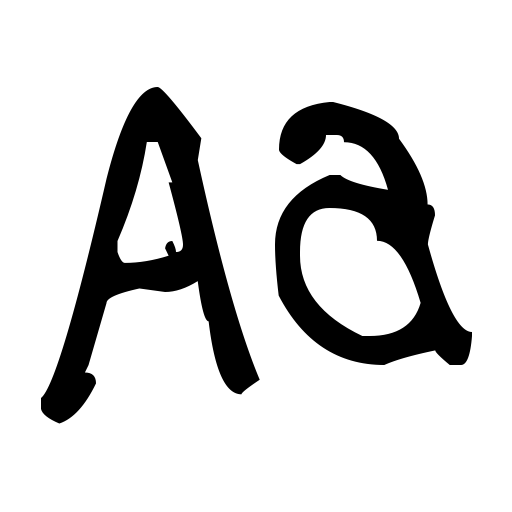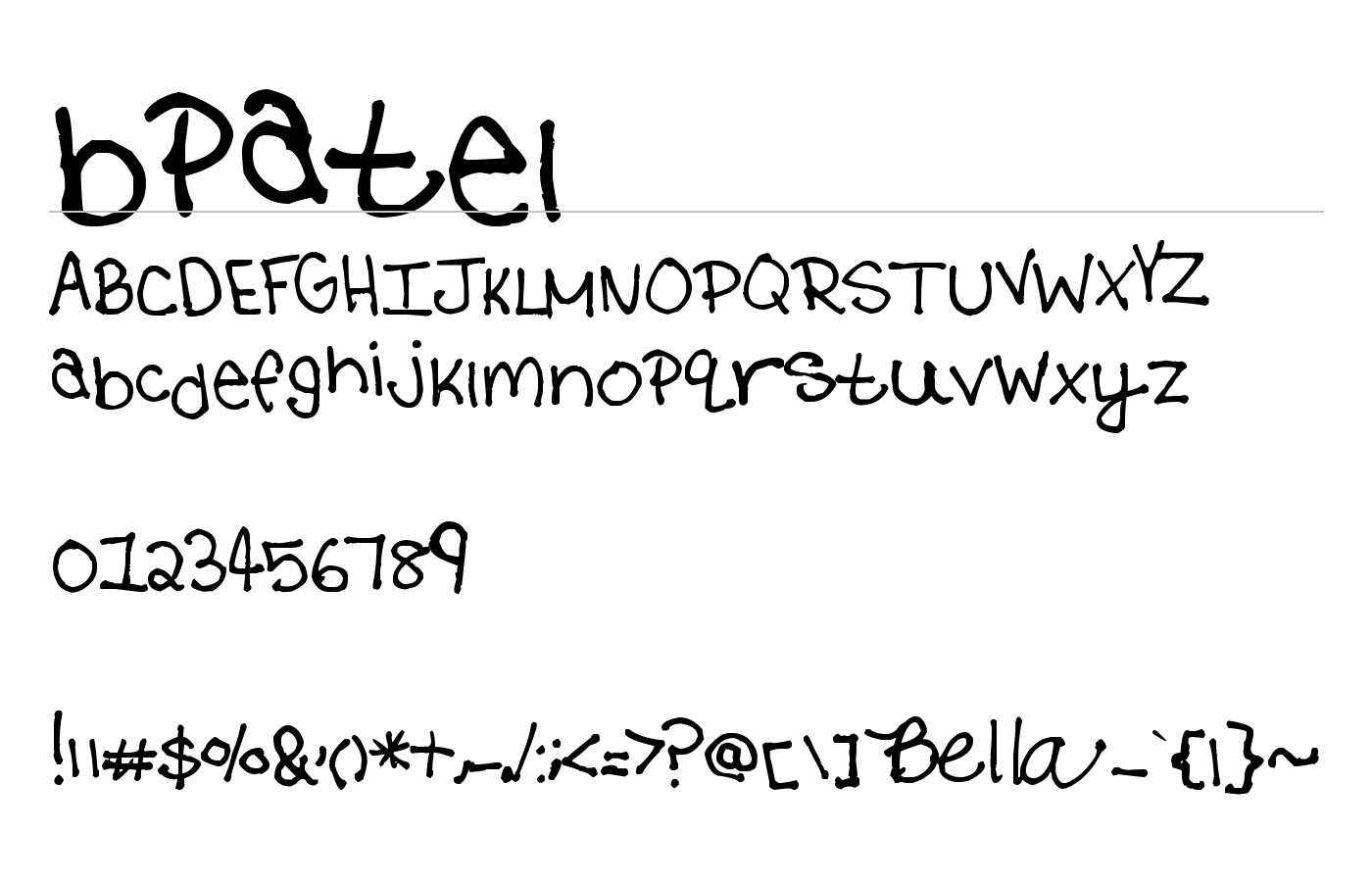
bpatel is a playful, handwritten sans serif font with a casual and quirky personality. Its irregular strokes, uneven letter shapes, and moderate x-height give it an informal, friendly feel, making it ideal for creative projects, children’s materials, or any design seeking a personal, human touch. This font works best in headlines, logos, or packaging where a relaxed and approachable style is desired.
bpatel Font
About bpatel Font